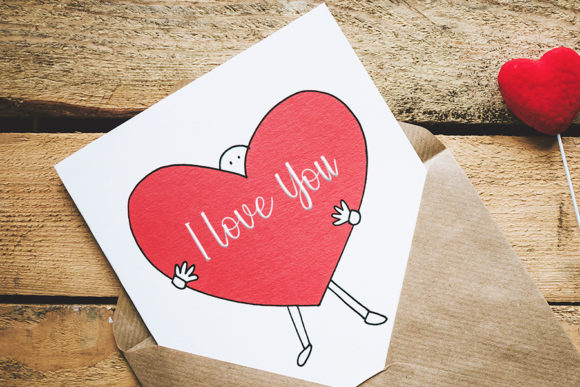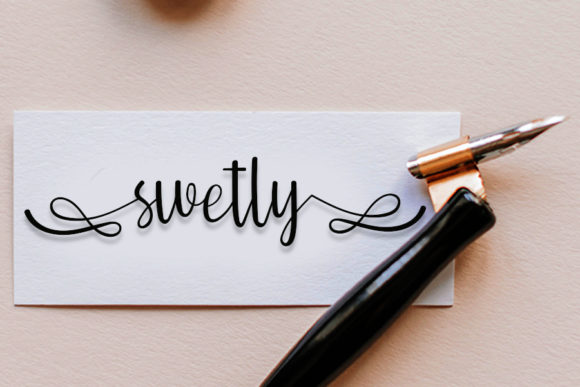
History Font
db-ku.com - Script & Handwritten -- History is a superb calligraphy font. It can be used for various purposes such as logos, wedding invitations, headings, t-shirts and much more. This font is PUA encoded which means you can access all of the glyphs and swashes with ease!